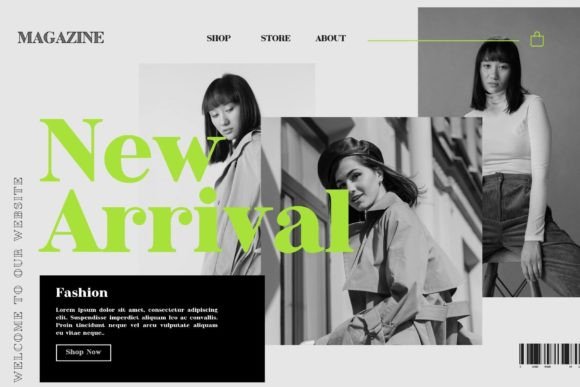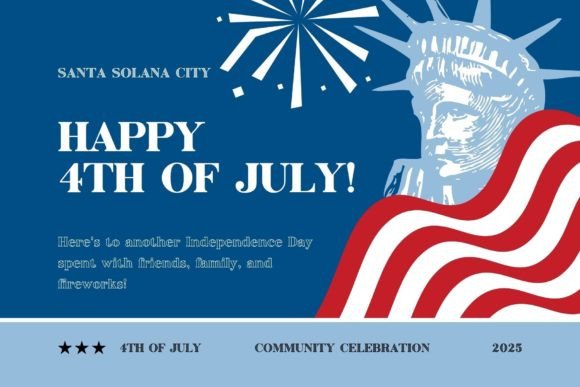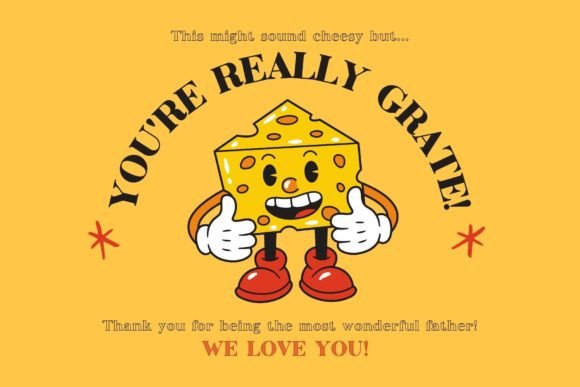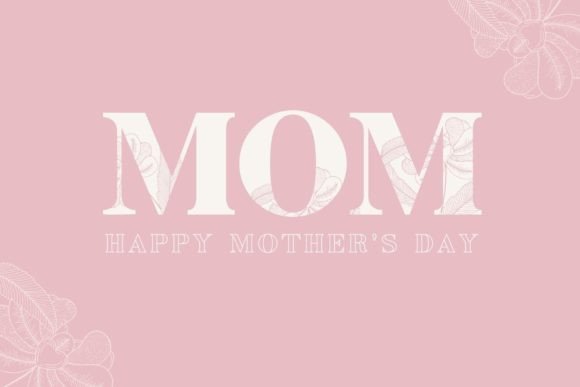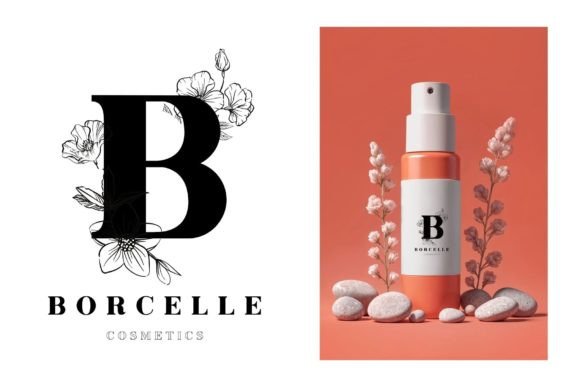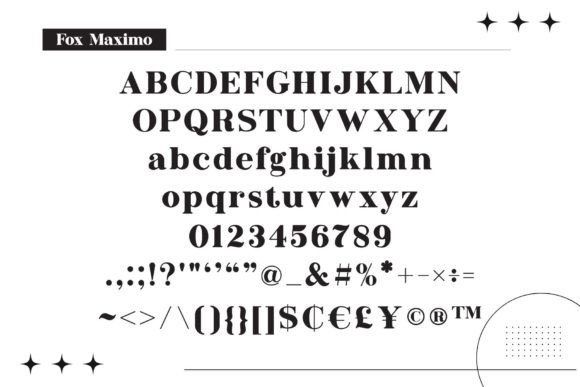
Introducing Fox Maximo Font: Elevate Your Designs with Modern Elegance
In the world of typography, a font can make or break a design. For designers and crafters looking for a versatile and stylish addition to their toolkit, Fox Maximo Font is an exceptional choice. This modern font comes in three beautiful styles, making it perfect for a wide range of projects, from contemporary digital content to vintage-inspired creations.
Versatility at Its Core
Fox Maximo Font stands out due to its incredible versatility. Whether you’re working on a blog post, logo, branding materials, advertisements, invitations, greeting cards, planners, photo albums, decorations, or any other creative project, this font fits seamlessly into any design aesthetic. Its compatibility with both contemporary and vintage styles makes it a unique find for designers who aim to produce work that is both modern and timeless.
Three Modern and Beautiful Styles
What sets Fox Maximo apart is its offering of three distinct styles, each with its own modern and beautiful characteristics. These styles can be used interchangeably or in combination, allowing for dynamic and layered designs. Whether you’re looking to add a touch of elegance, a dash of modernity, or a bit of whimsy to your project, Fox Maximo Font has you covered.
Contemporary and Vintage Design Aesthetics
In today’s design landscape, the ability to blend contemporary trends with vintage charm is highly prized. Fox Maximo Font excels in this area, offering a unique balance that appeals to a broad spectrum of design preferences. For contemporary projects, its clean lines and modern aesthetic ensure that your work looks fresh and current. For vintage-inspired designs, the font’s elegant and classic undertones bring a sense of nostalgia and sophistication.
Applications for Designers and Crafters
The applications for Fox Maximo Font are vast and varied. Here are a few examples of how designers and crafters can utilize this versatile font:
- Blog Posts: Enhance your digital content with a professional and modern look that captures readers’ attention.
- Logos and Branding: Create memorable brand identities with a font that communicates your brand’s values and style.
- Advertisements: Stand out in a crowded market with eye-catching ads that leverage Fox Maximo’s stylish appeal.
- Invitations and Greeting Cards: Add a personal touch to your paper crafts with elegant and beautiful typography.
- Planners and Photo Albums: Organize and showcase your memories with a font that adds a touch of class to any project.
- Decorations: From wall art to home decor projects, Fox Maximo Font can be used to create unique and stylish pieces.
Why Choose Fox Maximo Font?
Fox Maximo Font is a powerful tool for designers and crafters looking to elevate their work with modern elegance and versatility. Its three beautiful styles, compatibility with a wide range of design aesthetics, and extensive list of applications make it an invaluable asset in any creative toolkit. Whether you’re a professional designer or a hobbyist crafter, Fox Maximo Font offers the potential to transform your projects and bring your creative visions to life.